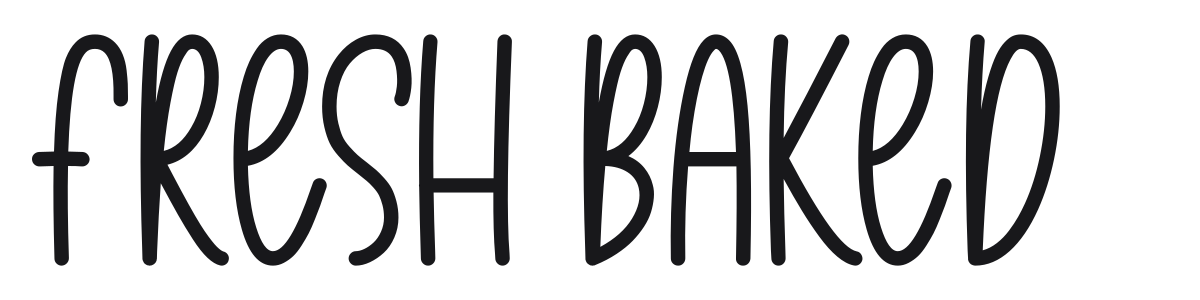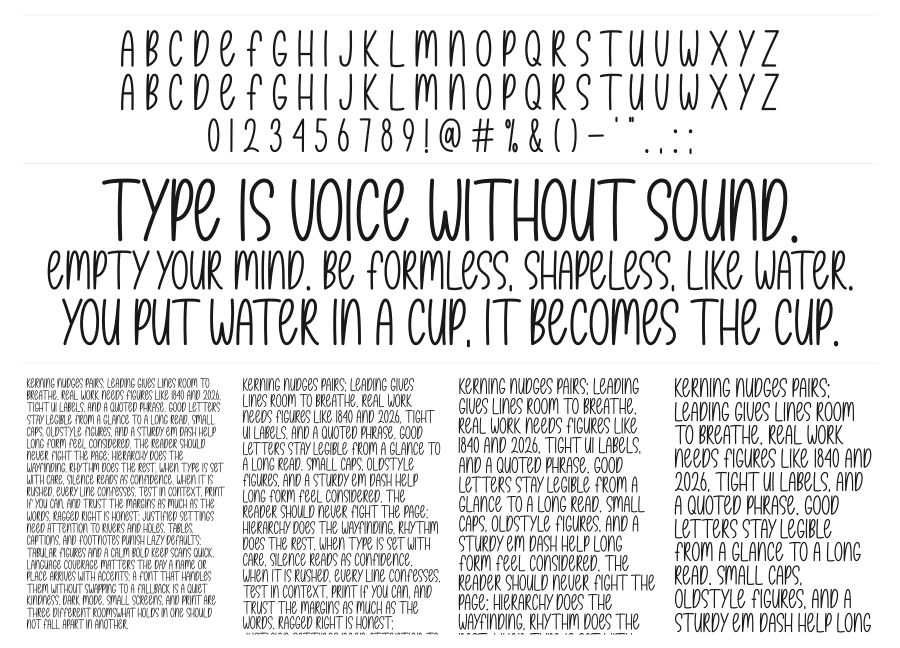
Fresh Baked
Fresh Baked is a hand-drawn casual sans with a bouncy, informal rhythm that feels like it was written on a chalkboard menu or a homemade gift tag. Slightly condensed proportions and softly rounded terminals keep the characters friendly and legible at display sizes. It suits bakery branding, children's content, and any project that wants an unpretentious handcrafted feel.